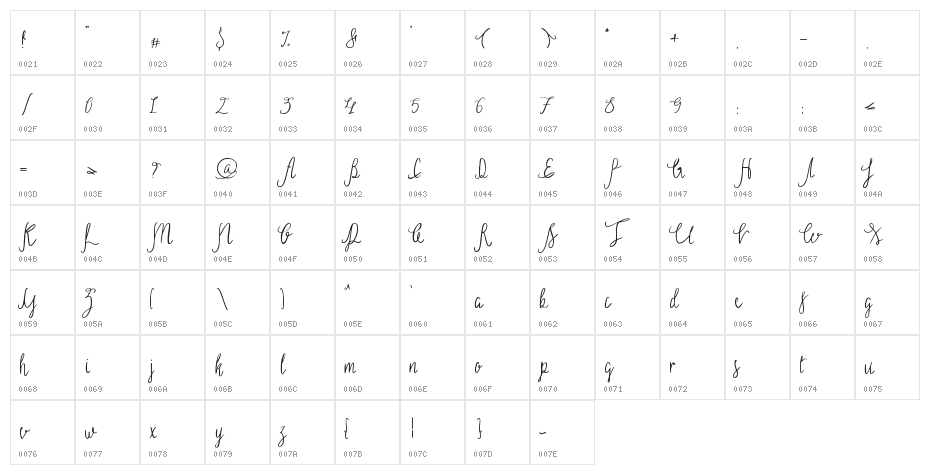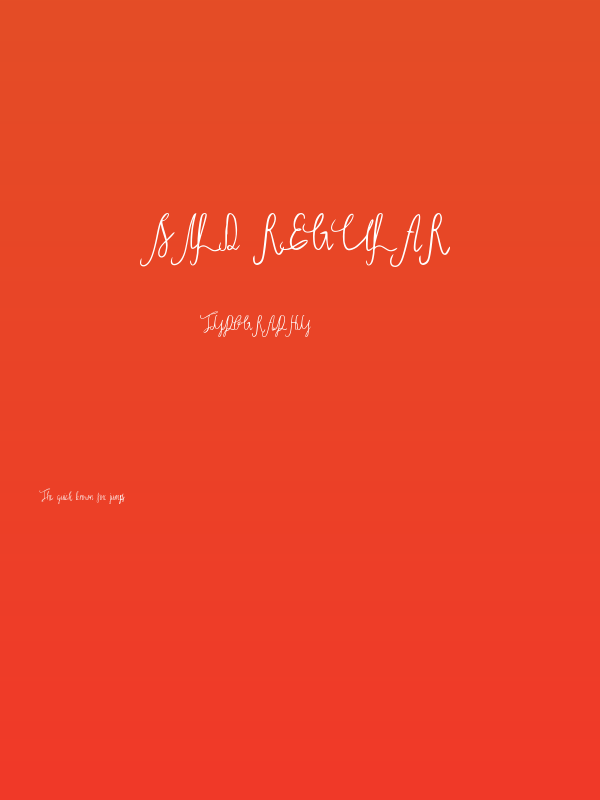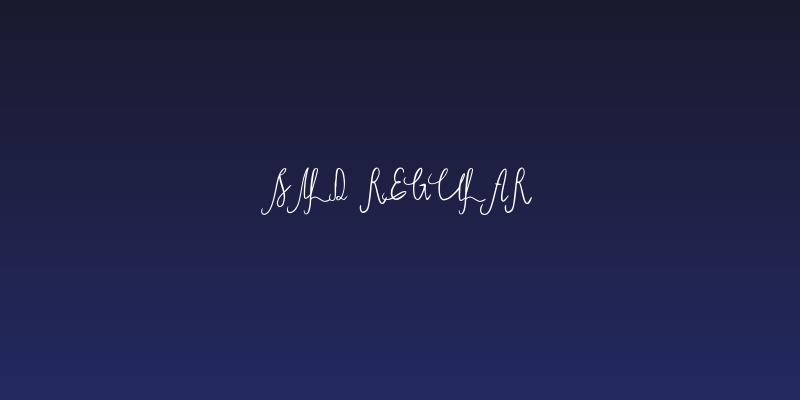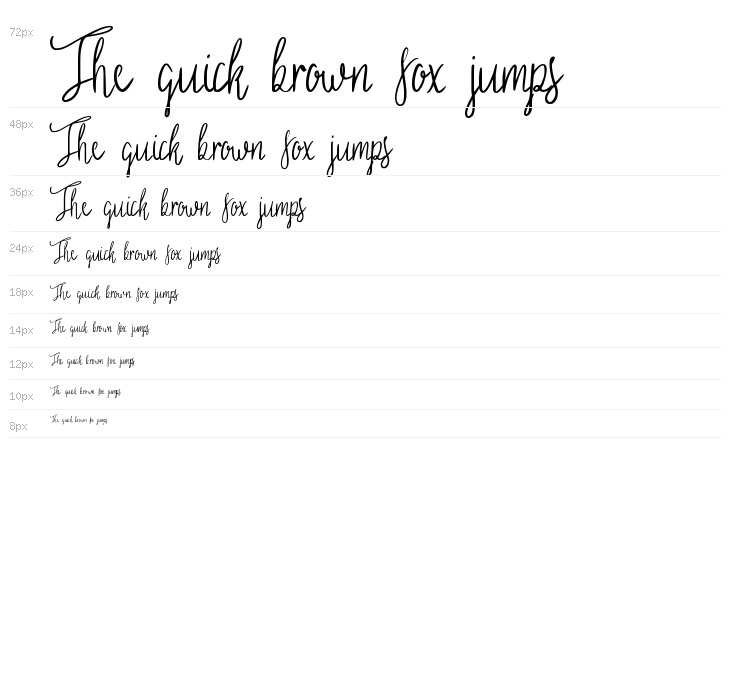
Sild regular Font
Sild regular Description
This font features an elegant and flowing script style, characterized by its smooth, cursive strokes and graceful curves. The letters are interconnected, creating a seamless and fluid appearance that mimics natural handwriting. The uppercase letters are slightly more ornate, with extended loops and swashes, while the lowercase letters maintain a consistent and harmonious flow. The numerals and special characters are designed to complement the overall script style, ensuring a cohesive look across all text. This font exudes a sense of sophistication and charm, making it ideal for projects that require a personal and artistic touch.
| Overall Style | Elegant, Artistic |
| Use Case | Logos, Invitations, Artistic projects |
| Proposed Projects | Ideal for wedding invitations, greeting cards, personal branding, and artistic projects. |